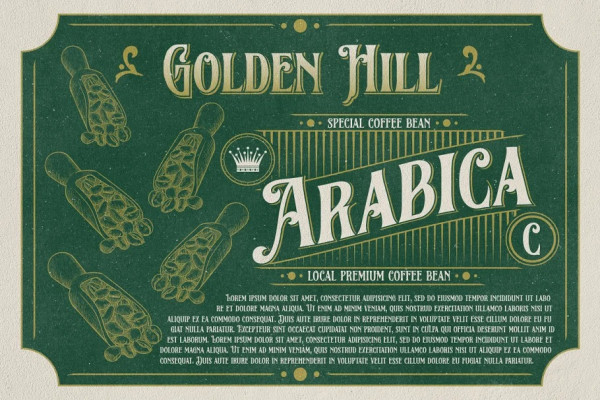
Beatford Vintage Font
Beatford Vintage Font is a Vintage typeface font, it will add an old-rustic charm to any design project. This collection of font is perfect for everything your project with vintage, retro, wild or organic style. It was made with the intention of being used for product Logo like a Pomade, Coffee, Barber shop or packaging label. It’s great also for Branding, Logo designs, Lettering, Logotype, Craft, Posters and much more.
Comes with a full Uppercase, Lowercase, Numbers, Punctuation and standard Multilingual support it’s going to be a very usable addition to your project. We recommend using Adobe Illustrator or Photoshop. If you using another software, you can use the Font Book on your Mac or the Character Map on your windows to see and access alternate character like swash. Use it for any crafting project that requires a classic appearance!